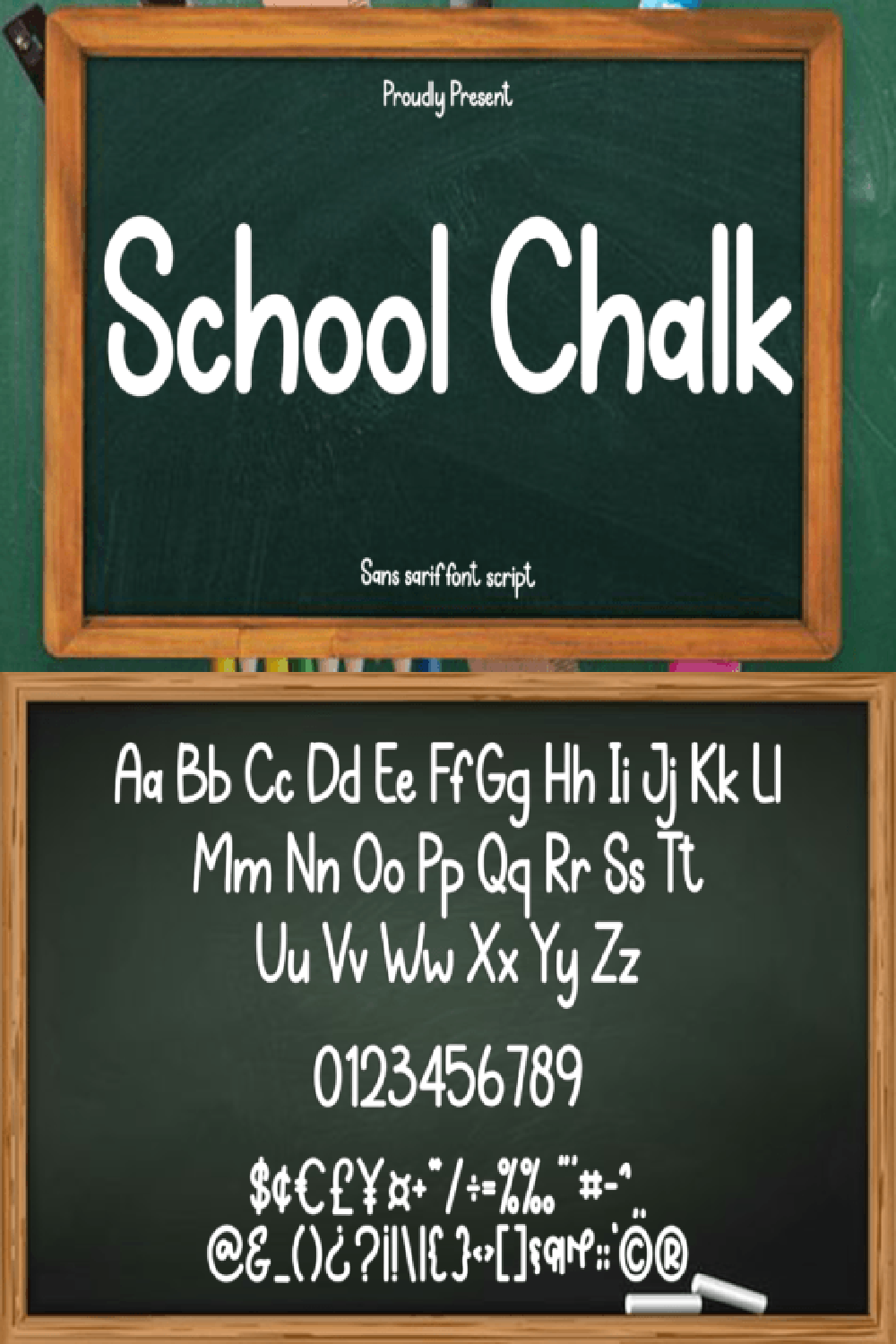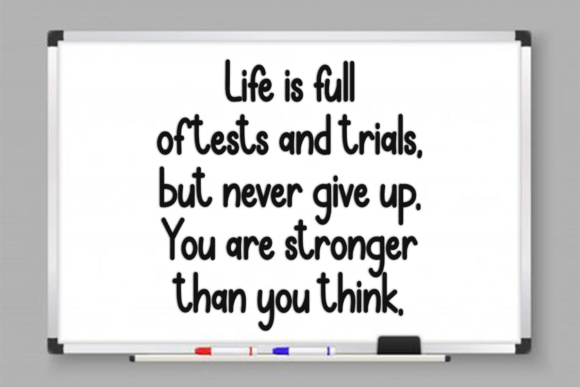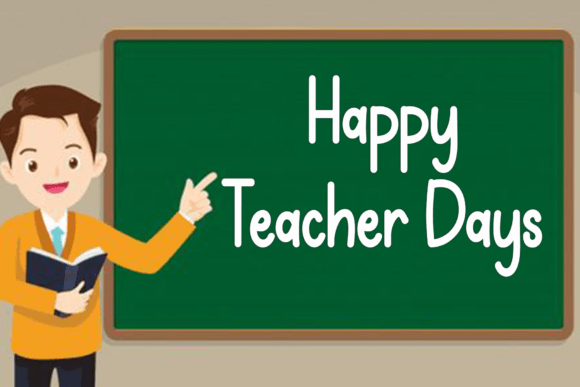
School Chalk Font: A Cute Handwritten Font for Cricut & DIY Projects
About the School Chalk Font
Experience the unique personality of School Chalk Font, a font designed for impact. School Chalk is a cute sans-serif script typeface. Perfect for use in website headings, body text, and blog posts, providing a clear and professional look.